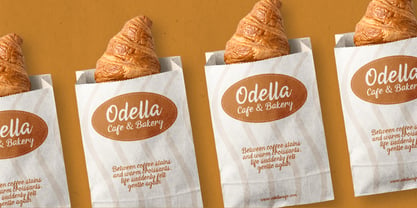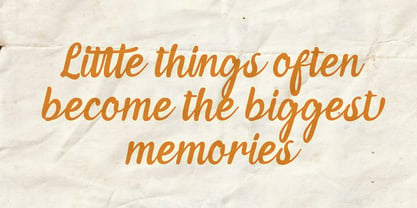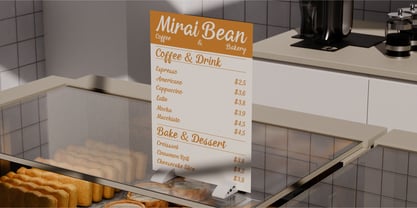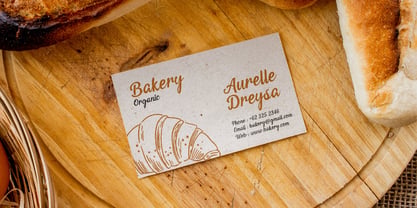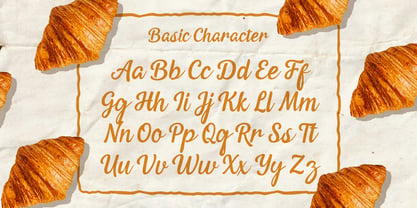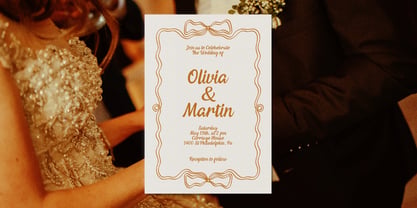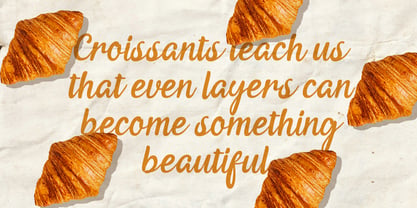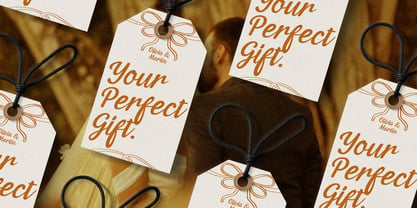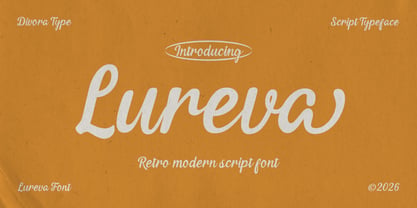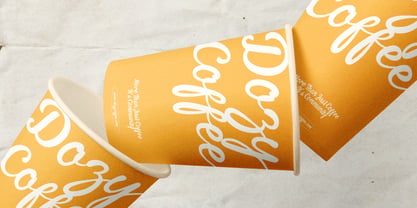
Lureva
by Divora Type
The Lureva Font Family was designed by Dhian Tri Antono and published by Divora Type. Lureva contains 1 styles. More about this family
Meet Lureva Font!
A graceful modern script typeface crafted with flowing curves, elegant movement, and a soft feminine touch. Designed to bring sophistication and warmth into every project, Lureva feels perfect for branding, wedding designs, packaging, social media, logos, editorial layouts, and timeless typography creations.
Lureva comes with beautiful handcrafted details and a natural writing rhythm that feels both luxurious and effortless. Carefully designed to stay readable while still carrying an expressive personality, making it versatile for both large headlines and delicate signature styles.
Packed with OpenType Features including stylish ligatures, elegant swashes, and a collection of stylistic alternates that allow you to create custom and sophisticated lettering compositions with ease.
Features Included:
• Uppercase & Lowercase
• Numerals & Punctuation
• Multilingual Support
• Stylistic Alternates
• Ligatures
• Swashes
• Smooth Natural Flow
Lureva is perfect for creating romantic, luxurious, and modern designs with a timeless feminine aesthetic.
Designers: Dhian Tri Antono
Foundry: Divora Type